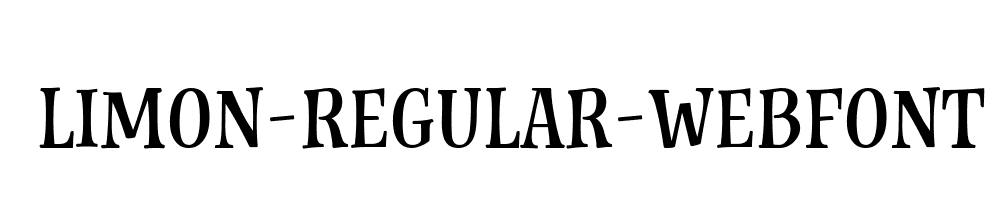
limon-regular-WebFont
About limon-regular-WebFont
Introducing the Limon Regular WebFont, a font designed with clarity and simplicity in mind, making it suitable for a wide range of design projects. From the gentle curves of the aperture to the sharp apex of each letter, this font exudes elegance and sophistication. The pronounced arc and smooth arms give the letters a sense of fluidity and grace, while the ascender reaches for the sky with confidence. The bilateral serif adds a touch of classic charm to the overall structure, creating a perfect balance between tradition and modernity. The open counters invite creativity and playfulness, contrasting beautifully with the closed counters that add stability and strength to each character. The crossbar and crotch create a harmonious connection between letters, enhancing readability and visual appeal. The descender and ear add a unique flair to the design, drawing the eye to subtle details that make this font truly special. The eye-catching finials and feet provide a strong foundation for each letter, while the delicate hairline adds a touch of sophistication. The head serif and joints bring a sense of structure and order to the overall design, ensuring each letter is perfectly balanced and proportioned. The ligature and neck create a seamless flow between characters, enhancing the overall aesthetic of the font. The loops and overhangs add a playful touch to the design, giving each letter a sense of movement and energy. The serif and shoulder add a touch of sophistication and elegance, while the spine and spurs give the font a sense of strength and stability. The stems are robust and well-defined, adding a boldness and confidence to each character. The stress and tails add a unique flair to the font, creating a sense of depth and dimension. The tittles and terminals offer a finishing touch to each character, adding a sense of completion and refinement. The vertex of each letter adds a unique twist to the design, making it stand out from the rest. In terms of classification, the Limon Regular WebFont falls under the category of Classic – Progressive, combining timeless elegance with a modern twist. Its neutral expressiveness makes it suitable for a wide range of design projects, from formal invitations to playful marketing materials. With its warm and welcoming feel, this font is sure to make a lasting impression on any audience.